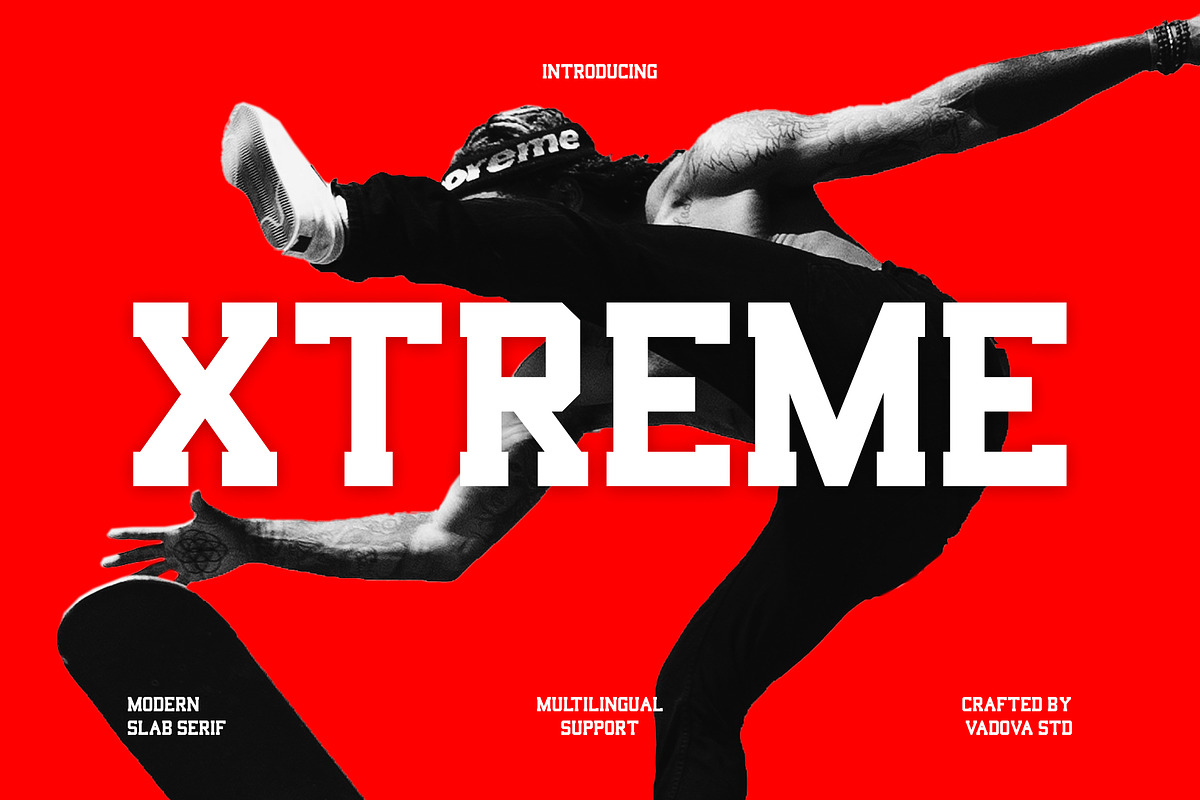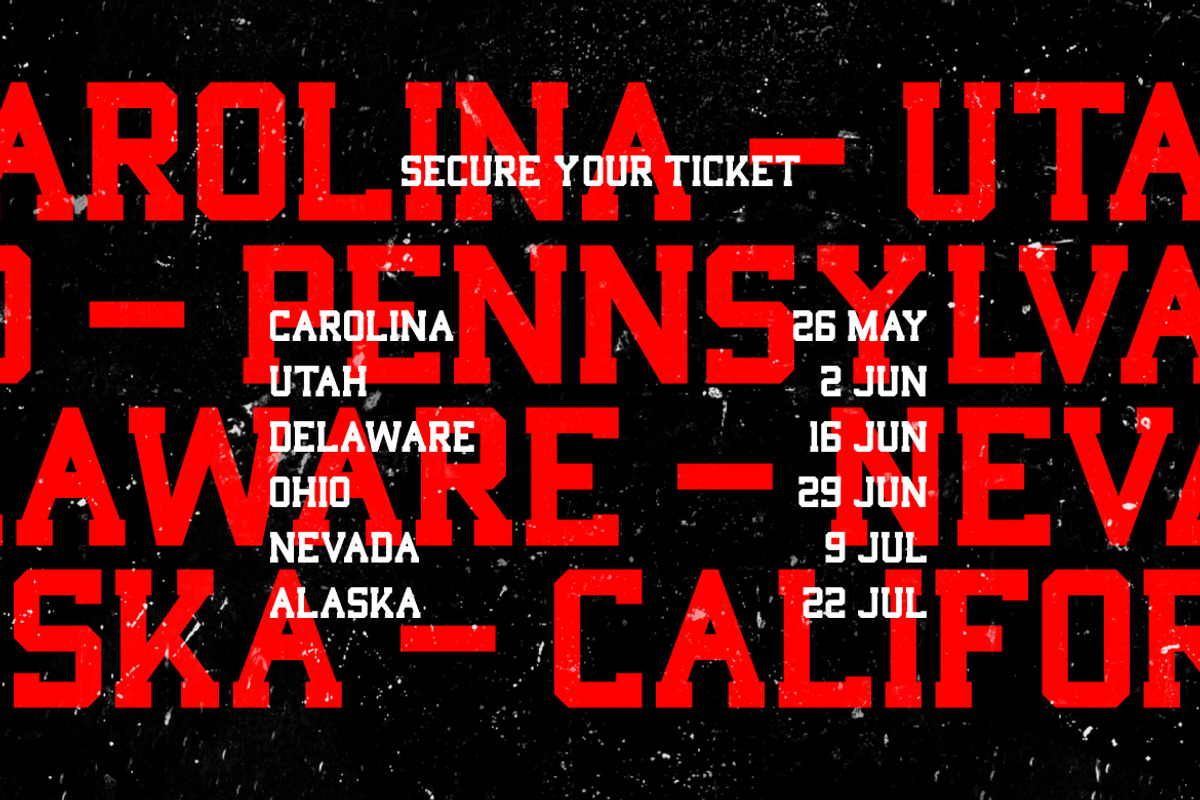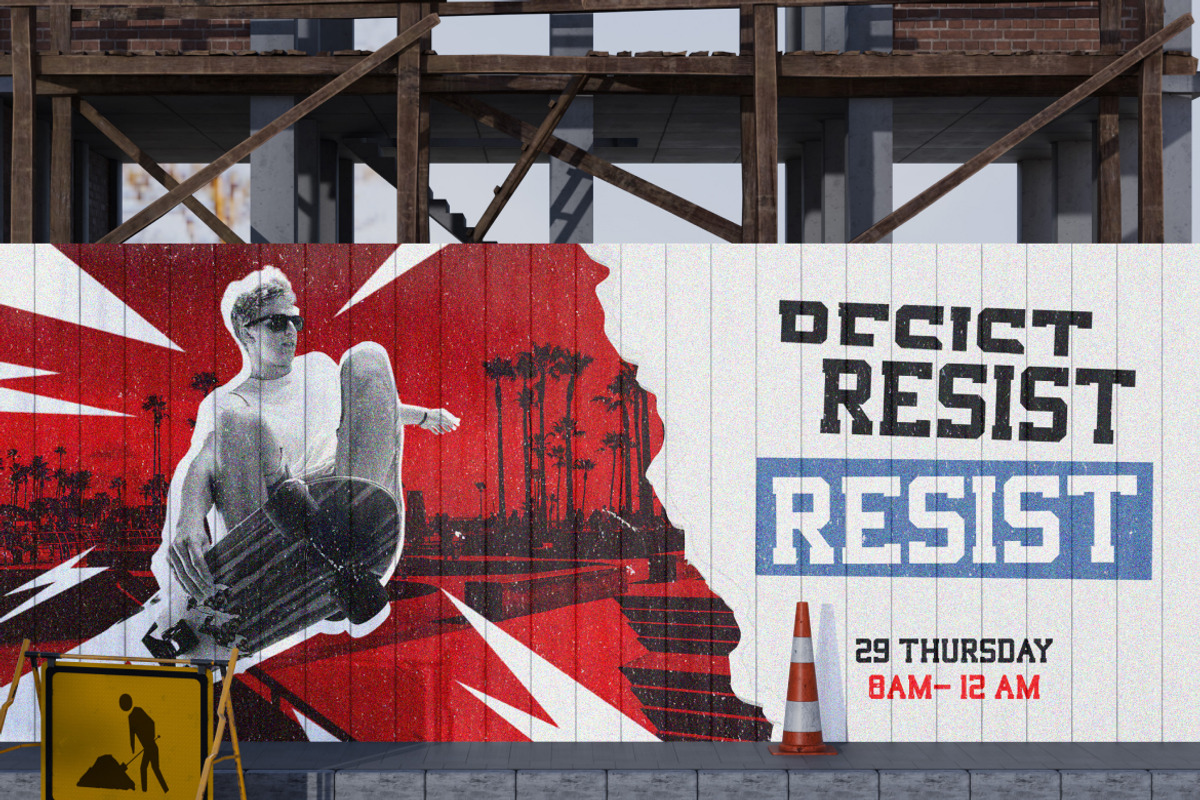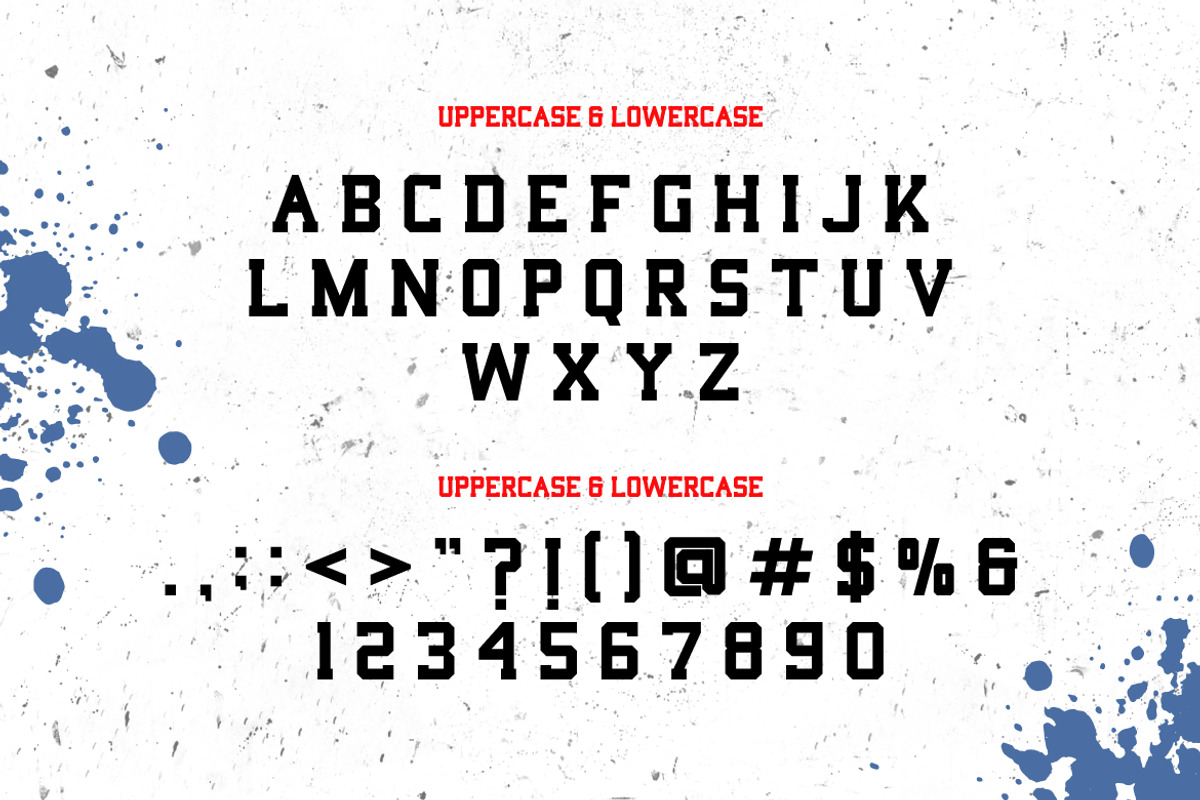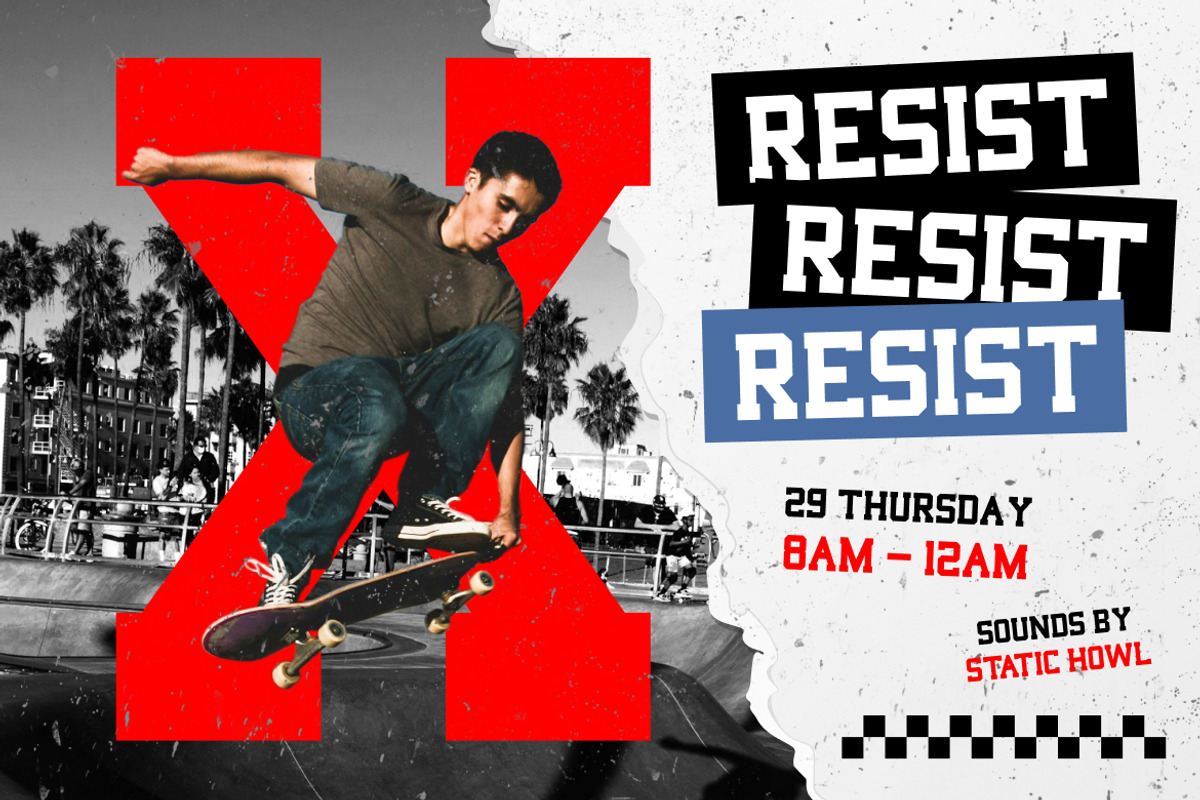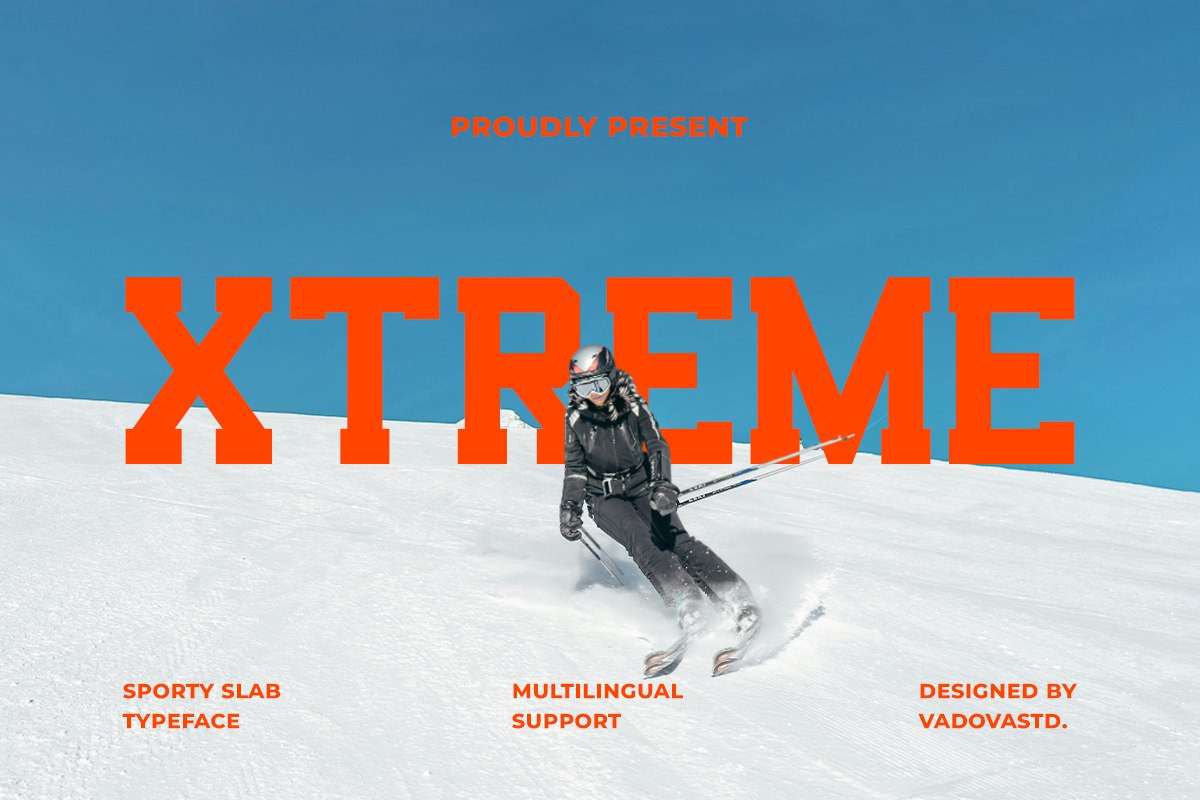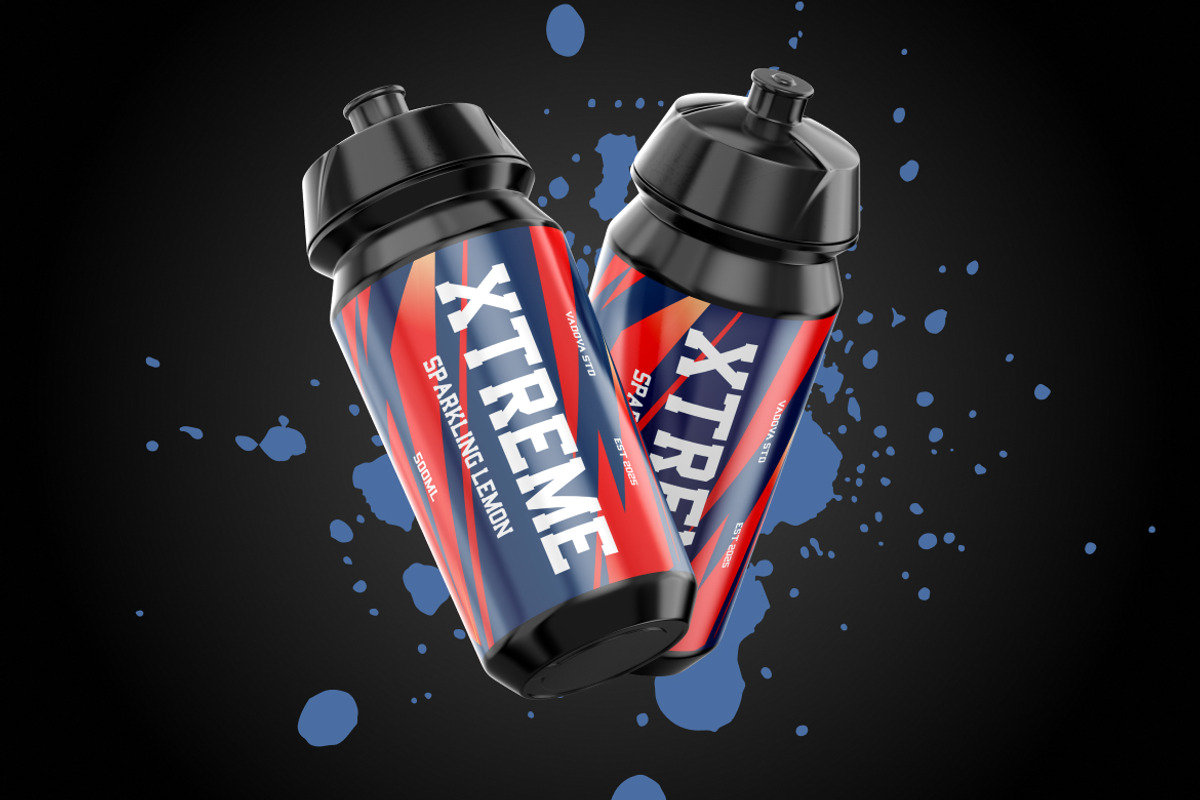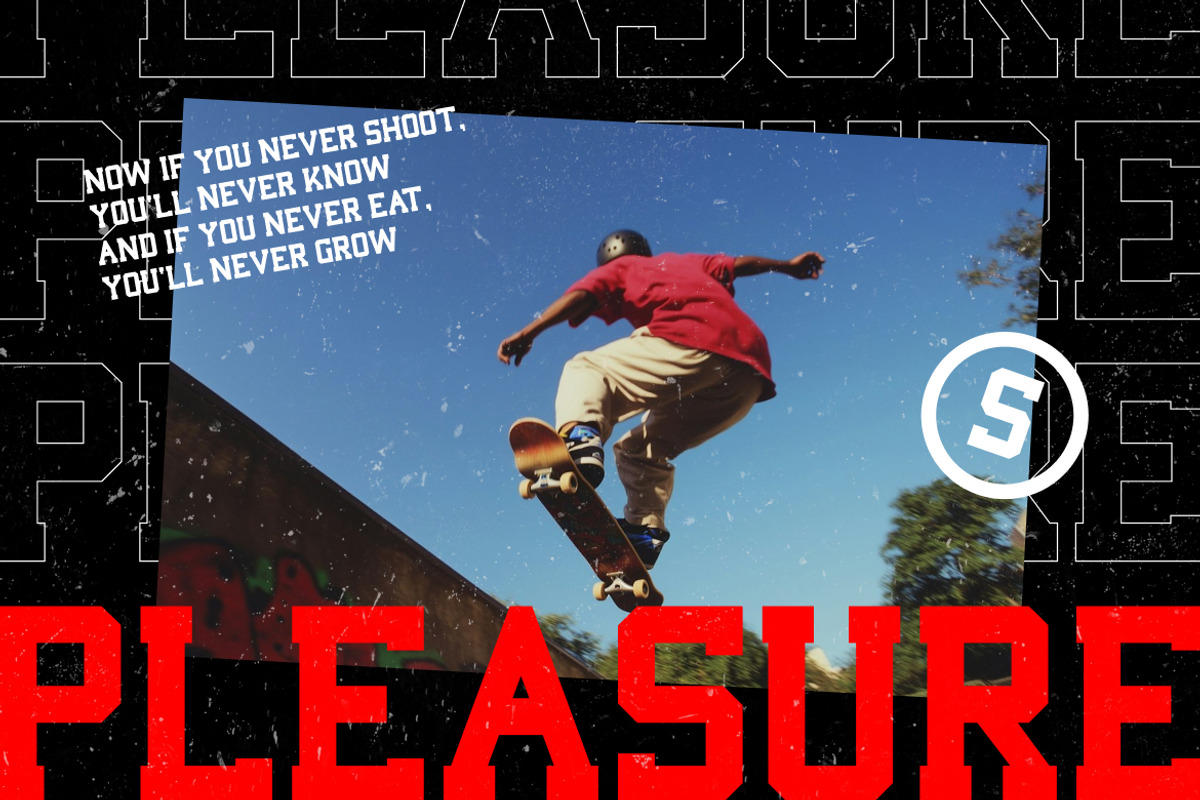
Xtreme Slab Serif Font
Xtreme is a bold, rebellious slab serif typeface built with the spirit of urban grit and fearless energy. Its square-cut serifs and geometric core give off a no-nonsense tone, instantly catching the eye with its assertive form. This font doesn’t whisper — it shouts. It's designed for high-stakes communication, perfect for streetwear graphics, extreme sports branding, gig posters, protest visuals, and event promos.
Crank up the volume on your typography with Xtreme—a bold slab serif built for the rebellious, the raw, and the relentless. Perfect for creators who want to break away from safe and ordinary, Xtreme brings intensity and structure to your loudest messages, ensuring every word commands attention in the urban visual space.
Whether you’re designing apparel graphics or promo assets for extreme events, Xtreme gives your typography the visual weight and impact it needs to dominate the page.
Main Features
- Uppercase & Lowercase characters
- Numeral & Punctuations